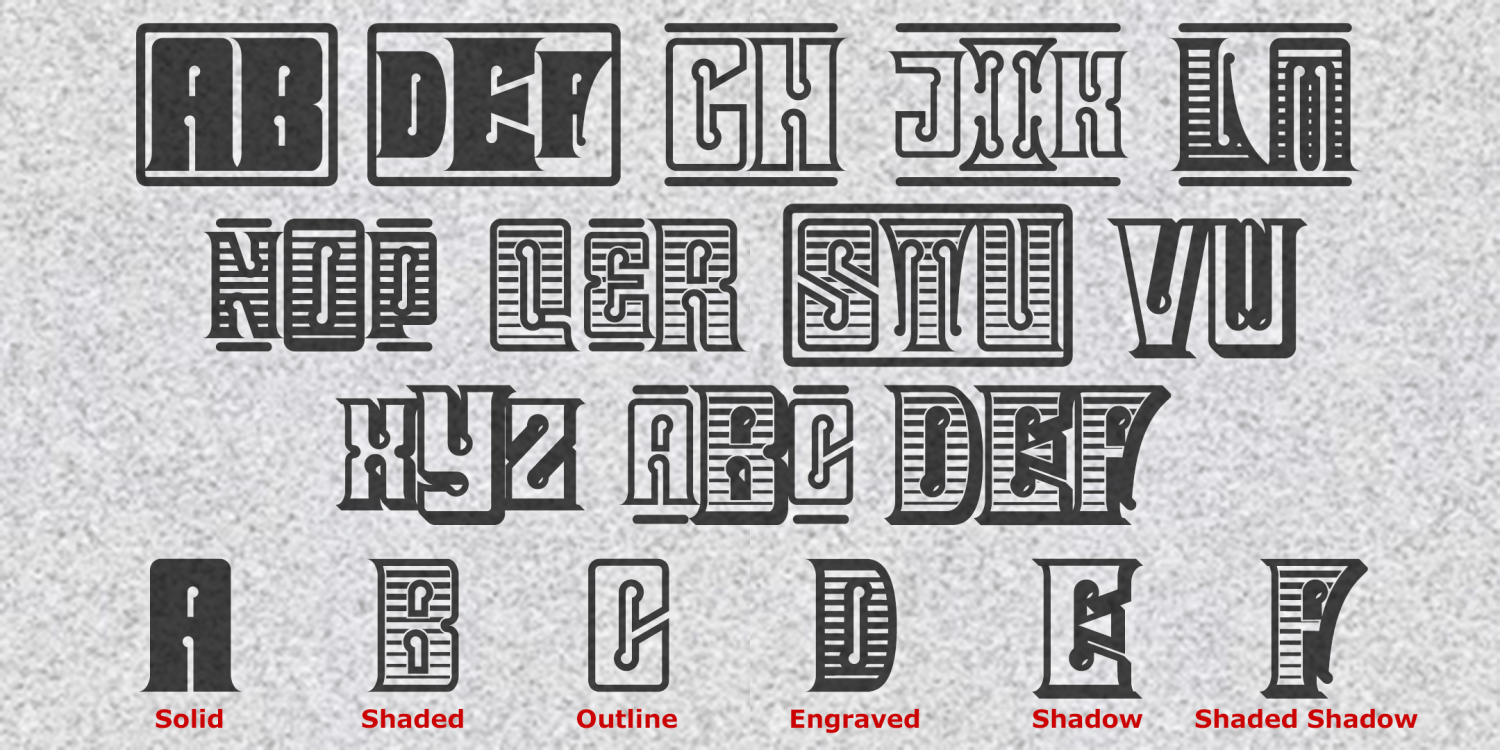
Tablet Monograms
Tablet Monograms have a bold and commanding look. Inspired by the kinds of lettering often found on old stock certificates and banknotes, Tablet Monogram come in 6 varieties including Solid, Outline, Shaded, and Shadow. It's easy to type your own custom monogram using any combination of large and small initials and a choice of decorative elements.